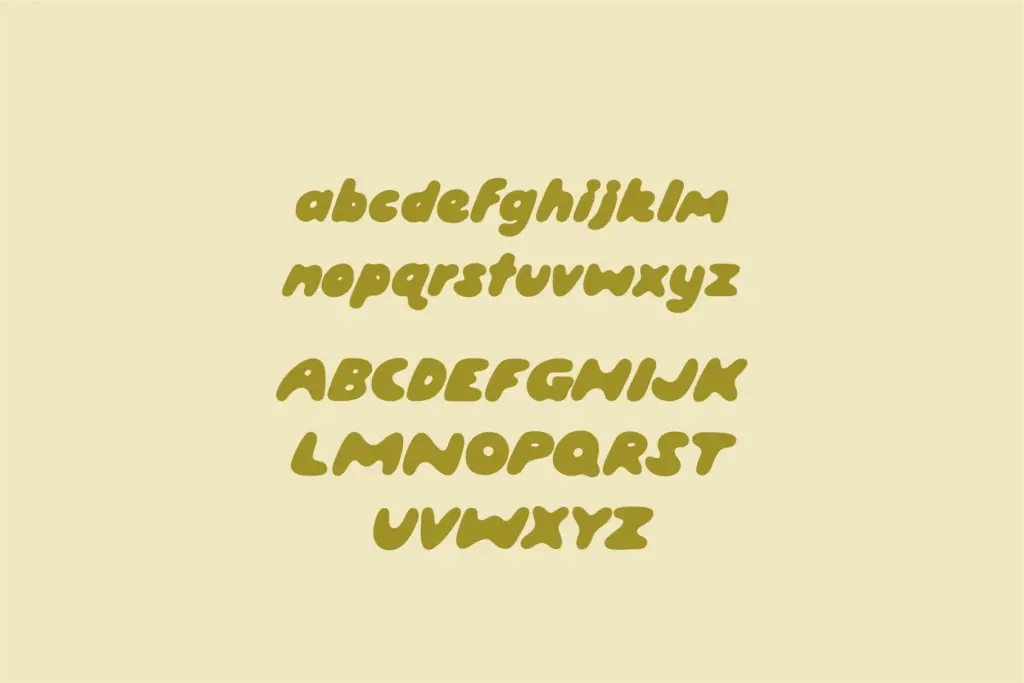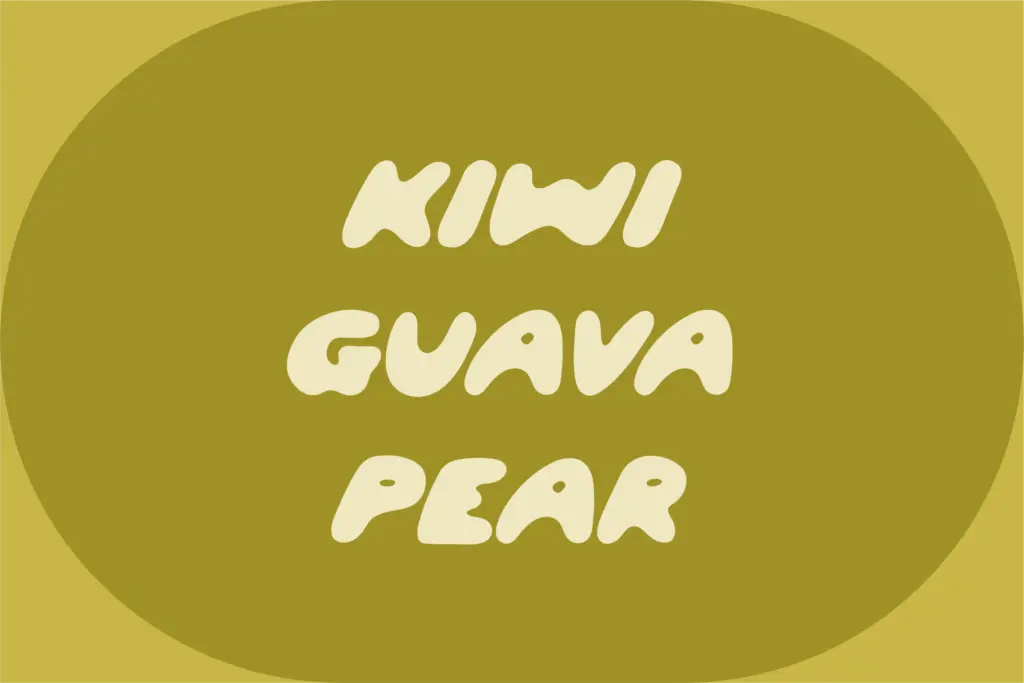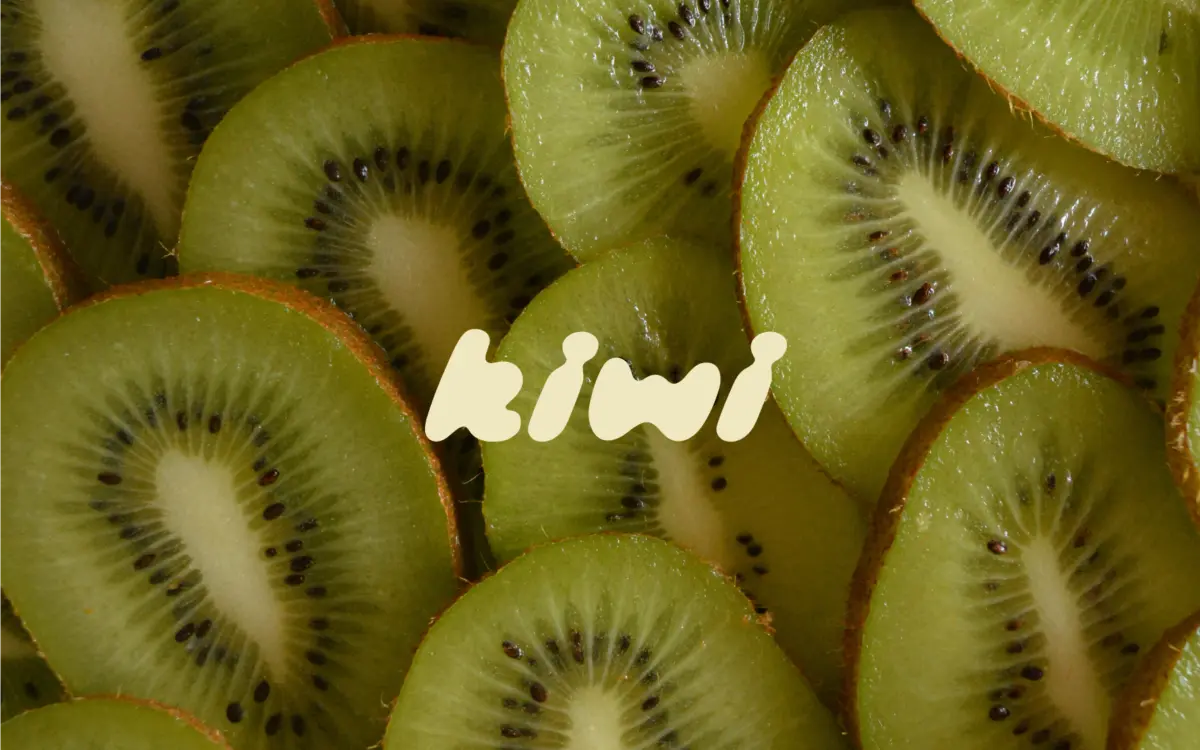
Kiwi Juicy Display is a hand-drawn, slanted display face built from thick, rounded strokes that all lean the same direction, giving it a tumbling, off-balance energy rather than a formal italic slant. The letters look inked with a fat brush or a marker held at an angle, with corners that bulge slightly at the joins instead of tapering to a point. There’s a deliberate lack of polish here: strokes vary in width within a single letter, baselines wobble a touch, and the whole thing reads as informal and a bit greedy for space, which suits the fruit-and-juice mood the name implies.
The designer describes it as emerging from several typefaces that gradually merged into one chunky shape, and you can see that layered history in the letterforms — there’s a sense of forms rubbing against each other, overlapping optically even when they don’t touch. It’s not a refined script; it’s closer to a shout than a whisper, and it wants room to be loud.
The set covers uppercase and lowercase with English language support, which is the baseline you need for most packaging and title work but not much more. There’s no mention of numerals, punctuation, ligatures, or alternate characters in the material provided, so treat this as a display alphabet rather than a full working font family — test your specific copy, especially anything with numbers or symbols, before committing. Spanish support is planned but not yet available, so if your project needs accented characters, this isn’t ready for that job today.
Because the letters are thick and irregular, spacing them by eye rather than trusting default kerning is worth the extra ten minutes — at large display sizes the occasional collision or gap is more visible, and it’s a one-word or short-phrase font, not a paragraph font. It has no pretensions to legibility at small sizes, and it shouldn’t be asked to carry body text.
This is a font for short, loud moments: a product name on a juice bottle, a single word on a beach towel, a album cover title, a badge on packaging that wants to feel handmade and a little sticky-sweet. The chunky, juicy quality does real work for food and beverage branding, especially anything leaning tropical, coastal, or summery — it has the visual weight to sit on its own without much supporting type around it.
It’s less suited to anything that needs restraint or formality — don’t reach for it on a law firm’s letterhead or a wedding invitation that wants elegance rather than personality. It also isn’t the font for dense signage or long headlines; the slant and irregularity get tiring past four or five words. Pair it with a plain, quiet sans or serif for supporting text, and let Kiwi carry the single loud line it’s built for.
- Thick, rounded strokes give it a distinct juicy, handmade feel that suits fruit and beverage branding.
- Strong at large display sizes where its irregularity reads as character rather than noise.
- Works well as a single standout word without needing much supporting design.
- Limited character set with no confirmed numerals or punctuation, and Spanish support is only planned.
- Uneven spacing means it needs manual kerning and isn't reliable for anything beyond short phrases.
Kiwi Juicy Display is a loud, chunky hand-drawn face best suited to single words and short phrases in food, drink, and lifestyle branding. It's limited in character set and not built for long copy, but for the job it's aimed at, it has real personality.